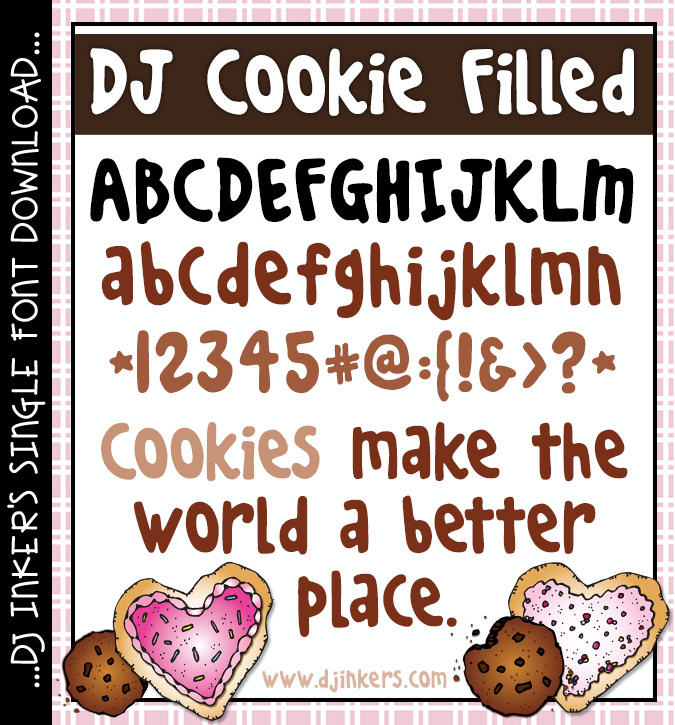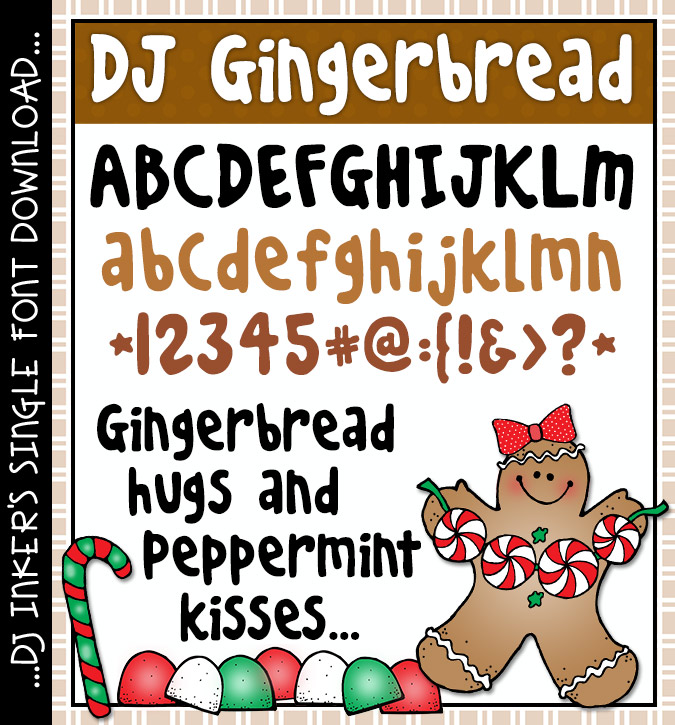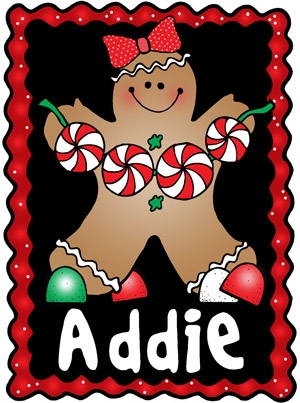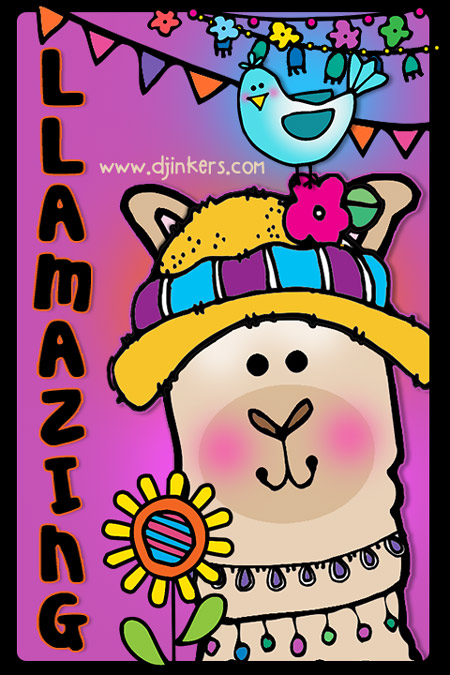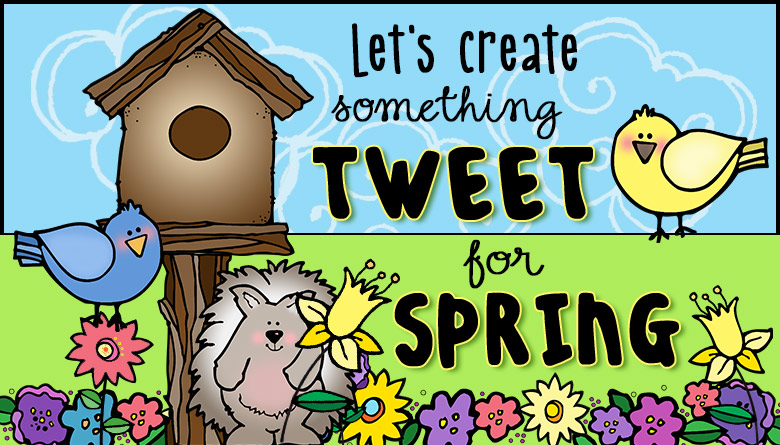
Type up a smile with this bold, sweet Cookie font by DJ Inkers
Cute gingerbread cookie clip art and bold font by DJ Inkers
Lovely Llama llamazing clip art and bold cookie font by DJ Inkers
DJ Cookie Filled Font Download
Cute gingerbread cookie girl with font and clip art by DJ Inkers
Create something tweet with cute clip art and fonts by DJ Inkers
Cute fonts and clip art for kids and outside play by DJ Inkers
DJ Cookie Filled Font Download
Movie ticket gift certificate with clip art and fonts by DJ Inkers
DJ Cookie Filled Font Download
Type-up a something sweet with our bold and whimsical DJ Cookie font... Filled with smiles.  It will look deliciously cute for happy headlines, holiday parties, Grandma's house, cookie exchanges & bake sale labels, preschool, birthdays and homemade delights. Taste a new DJ font today!
Oh snap! This font is also known as DJ Gingerbread.